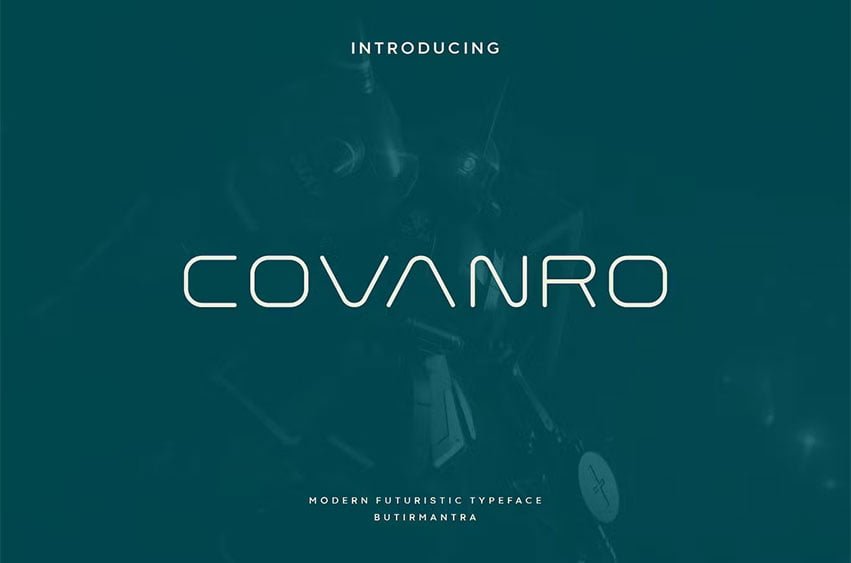
Covanro Font is a modern display font with an amazing futuristic feel, it’s thin shape makes it look luxurious and elegant. Covanro comes out with a unique style in all-caps which would be great for making space themed event poster, brochure, magazine, logo, headline or social media page cover, the design is minimalist yet futuristic so it will launch your designs into the stratosphere, this font will transform any creative idea becomes a true work of art.